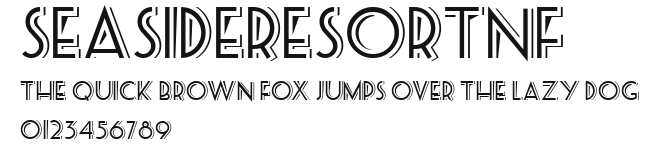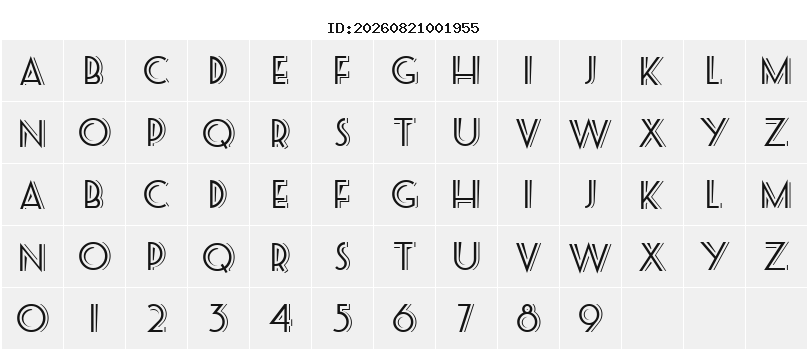
• Font Name: SeasideResortNF
• Font ID: SeasideResortNF
• Full Font Name: SeasideResortNF
• Version: Version 1.00 3/16/2003
• PostScript Name: SeasideResortNF
• Character Count: 246
• Copyright: Copyright (c) 2003 Nick Curtis. All Rights Reserved.
• Designer: Nick Curtis
• Manufacturer: Nick's Fonts
About SeasideResortNF.ttf
SeasideResortNF.ttf is a modern, elegant sans-serif font designed for ultimate readability and visual harmony. Perfect for branding, headlines, web design, and print materials.